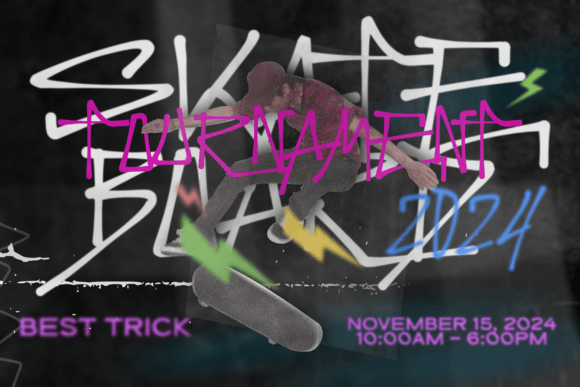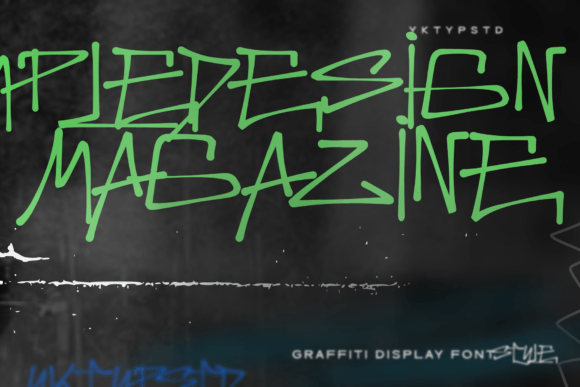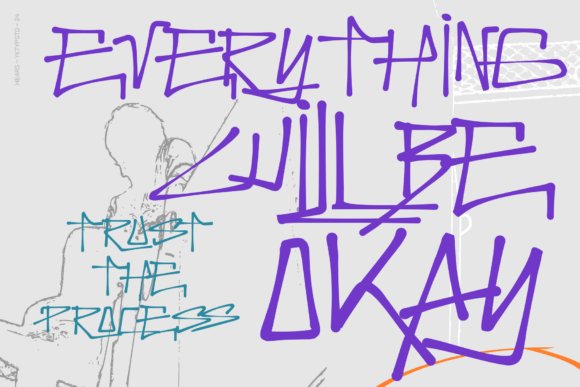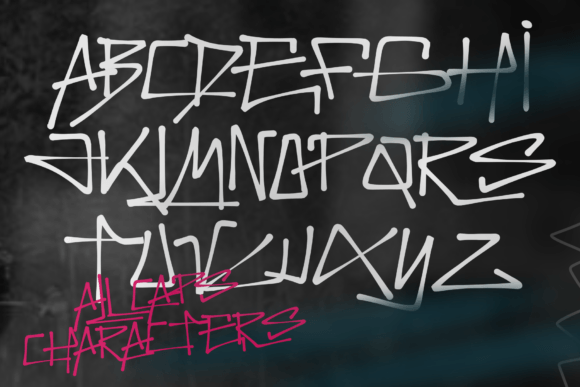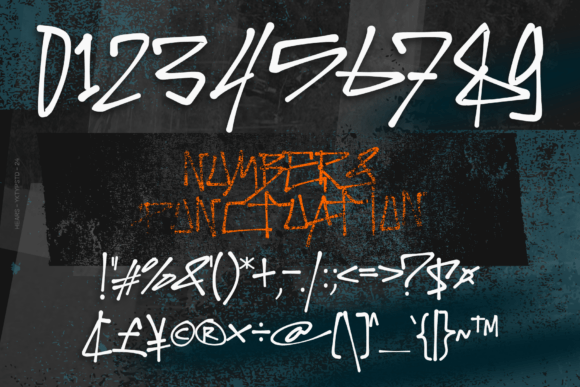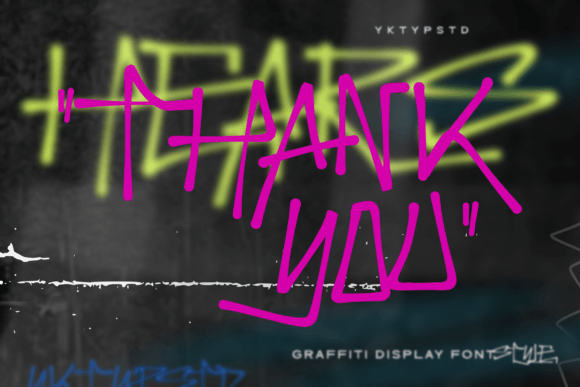
Unleash Your Creativity with Hears Font: The Edgy Essence of Graffiti Art
In the world of design, fonts play a crucial role in conveying the tone and aesthetic of a project. For those seeking to infuse their work with the raw energy of street art, Hears Font by Yktypstd is an exceptional choice. This graffiti font is specifically designed to capture the edgy essence of urban street art, making it perfect for a wide range of creative projects.
The Distinctive Aesthetic of Hears Font
Hears Font boasts a bold and dynamic lettering style that is sure to make a statement. Its unique and energetic design makes it an excellent choice for event posters, book covers, and cinematic titles. The font’s distinctive aesthetic is characterized by its rough, hand-drawn texture, which gives it an authentic graffiti feel. This texture adds a layer of depth and emotion to any design, making it perfect for designers seeking to create a lasting impression.
Perfect for Urban Streetwear Designs and More
The versatility of Hears Font makes it an ideal choice for a wide range of design applications. Its energetic style perfectly complements urban streetwear designs, magazine layouts, and impactful quotes. Whether you’re creating a bold and eye-catching poster or a stylish text overlay for a background, Hears Font is the perfect choice. Its unique aesthetic adds a touch of edginess to any design, making it perfect for designers seeking to push the boundaries of creativity.
Enhance Your Creative Projects with Hears Font
With Hears Font, designers can enhance their creative projects with a distinctive aesthetic that is sure to turn heads. This versatile typeface adds a stylish text overlay to any background, making it perfect for a wide range of design applications. From event posters and book covers to cinematic titles and magazine layouts, Hears Font is the perfect choice for designers seeking to infuse their work with the authentic vibrancy of graffiti art.
Key Features of Hears Font
- Bold and dynamic lettering style: Hears Font boasts a unique and energetic design that is sure to make a statement.
- Authentic graffiti feel: The font’s rough, hand-drawn texture gives it an authentic graffiti feel that adds a layer of depth and emotion to any design.
- Versatile design applications: Hears Font is perfect for a wide range of design applications, including event posters, book covers, cinematic titles, and magazine layouts.
- Stylish text overlay: The font adds a stylish text overlay to any background, making it perfect for designers seeking to infuse their work with the authentic vibrancy of graffiti art.
Tips for Using Hears Font
To get the most out of Hears Font, here are a few tips to keep in mind:
- Experiment with different colors: Hears Font looks great in bold and bright colors, so don’t be afraid to experiment with different color schemes.
- Pair with contrasting fonts: Pairing Hears Font with contrasting fonts can create a visually appealing design that adds depth and interest.
- Use for headlines and titles: Hears Font is perfect for headlines and titles, where its bold and dynamic lettering style can make a lasting impression.
In conclusion, Hears Font by Yktypstd is a graffiti font that captures the edgy essence of street art. Its bold and dynamic lettering makes it an excellent choice for event posters, book covers, and cinematic titles. With its versatile design applications and distinctive aesthetic, Hears Font is perfect for designers seeking to infuse their work with the authentic vibrancy of graffiti art. So why wait? Download Hears Font today and unleash your creativity!